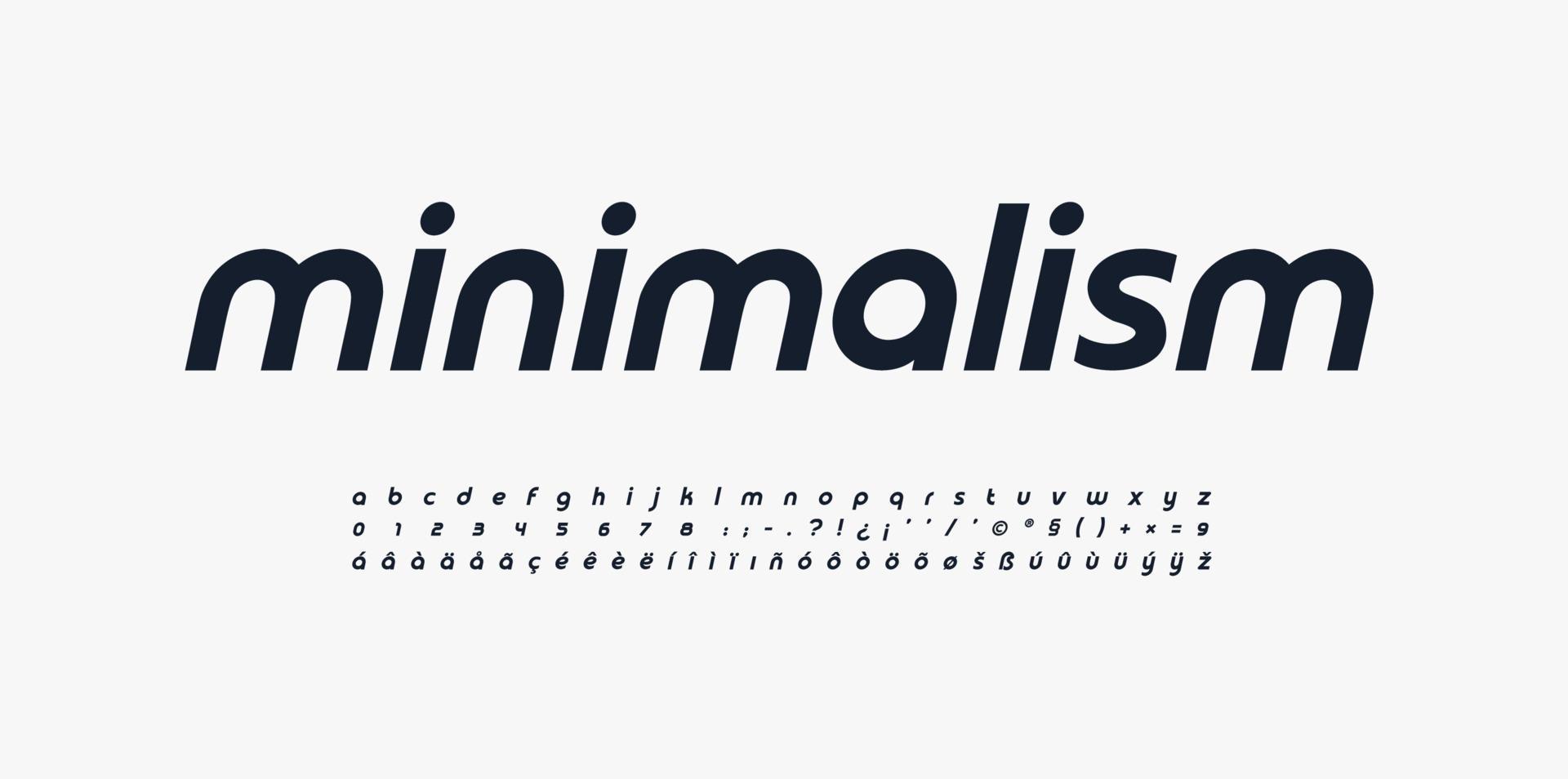
Minimalism sans serif font, sleek typeset, calm style rounded alphabet. Lowercase letters with multilingual coverage, numbers, punctuations. Vector typography design Pro Vector